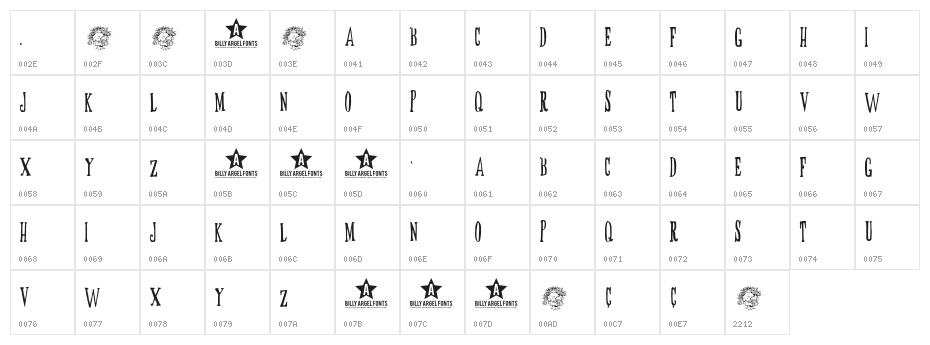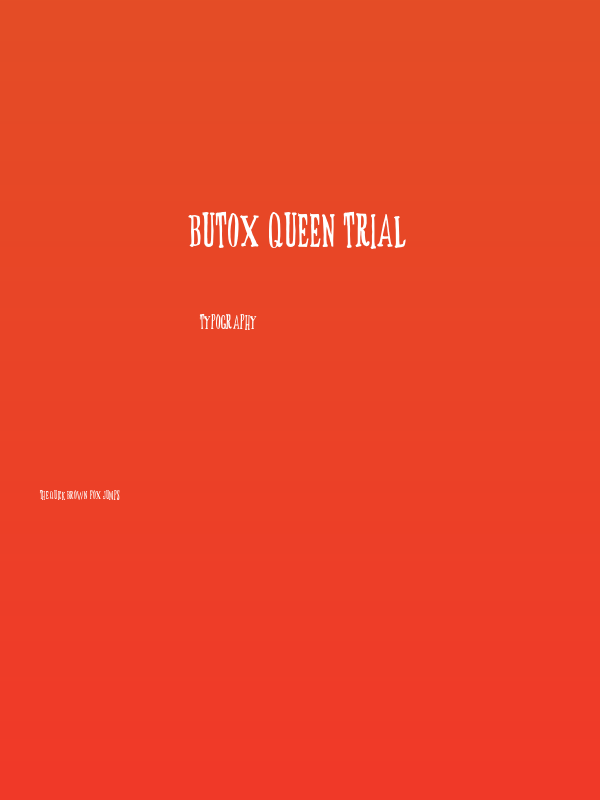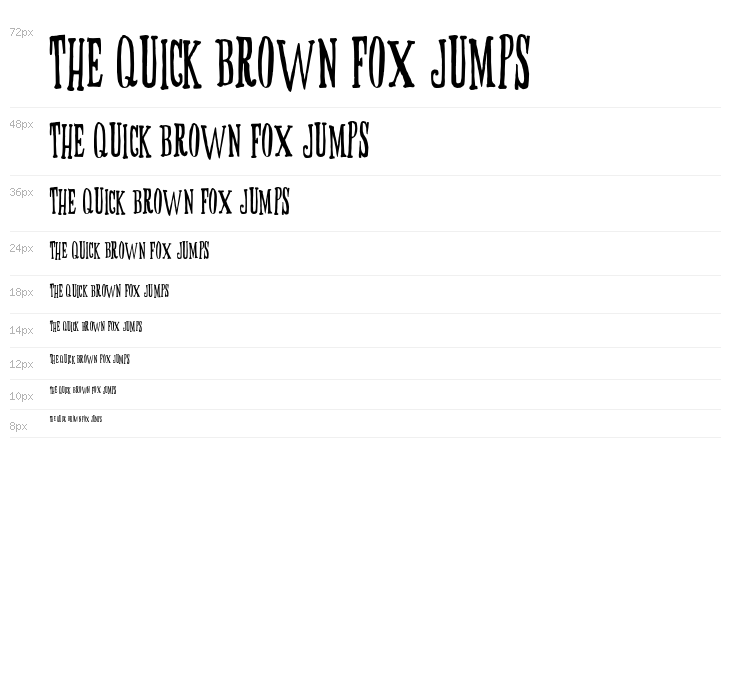
BUTOX QUEEN trial Font
BUTOX QUEEN trial Description
This font features a bold and decorative style with a vintage flair. The uppercase letters are characterized by their tall, narrow forms with slightly uneven edges, giving them a hand-drawn appearance. The serifs are prominent and add to the overall decorative nature of the font. The letters have a consistent weight, contributing to a uniform look across the alphabet. This font is well-suited for projects that require a touch of nostalgia or a retro aesthetic, making it ideal for posters, branding, and headlines. The unique style of the letters ensures they stand out, making them perfect for eye-catching designs.
Overall StyleVintage
Proposed ProjectsIdeal for vintage-themed posters, branding, and headlines.